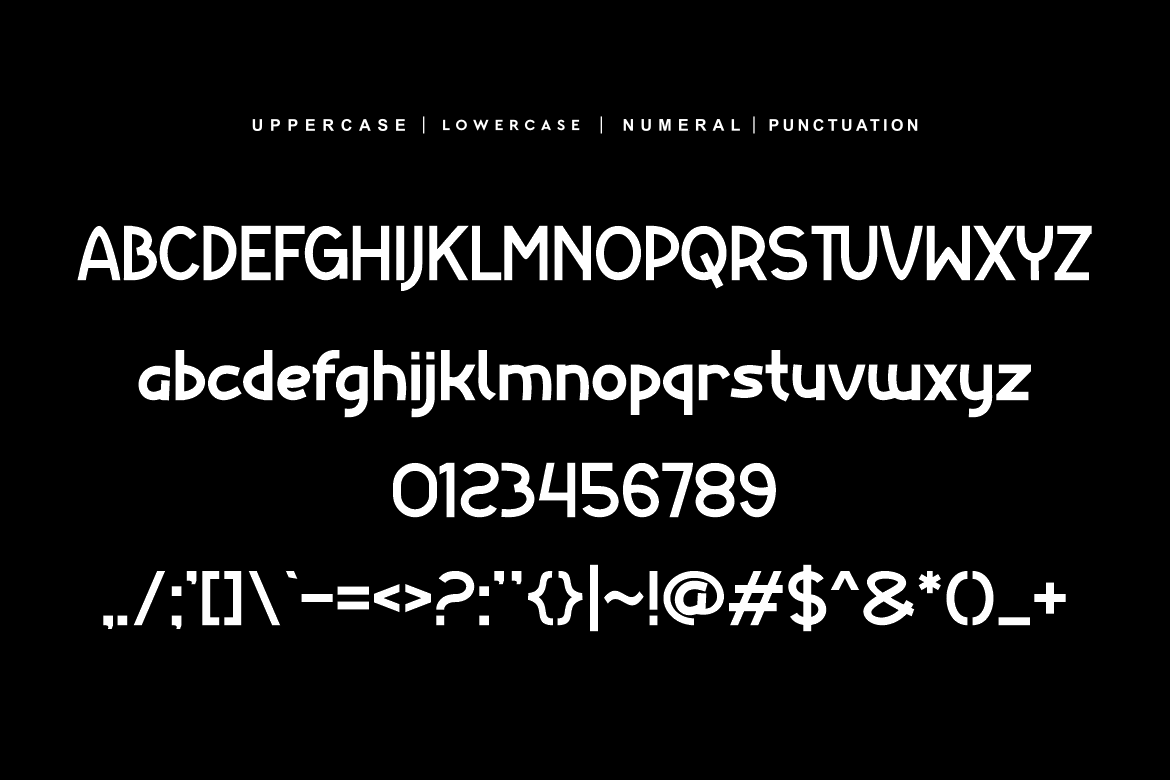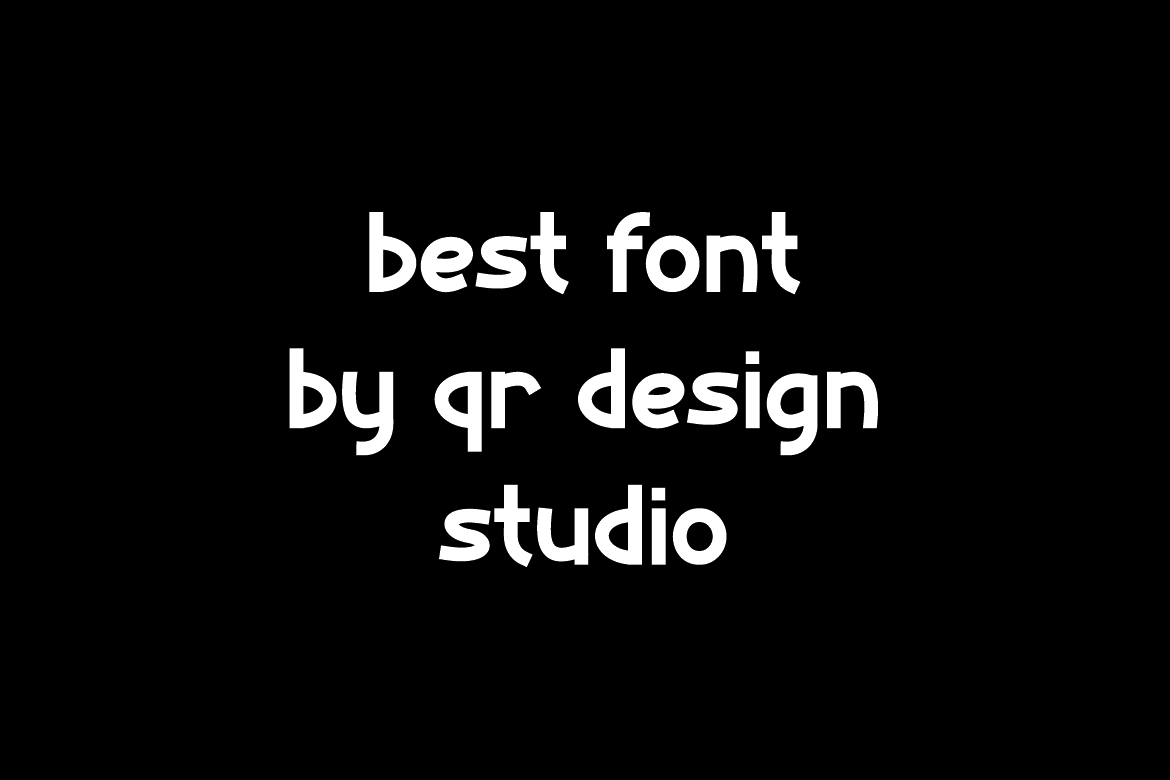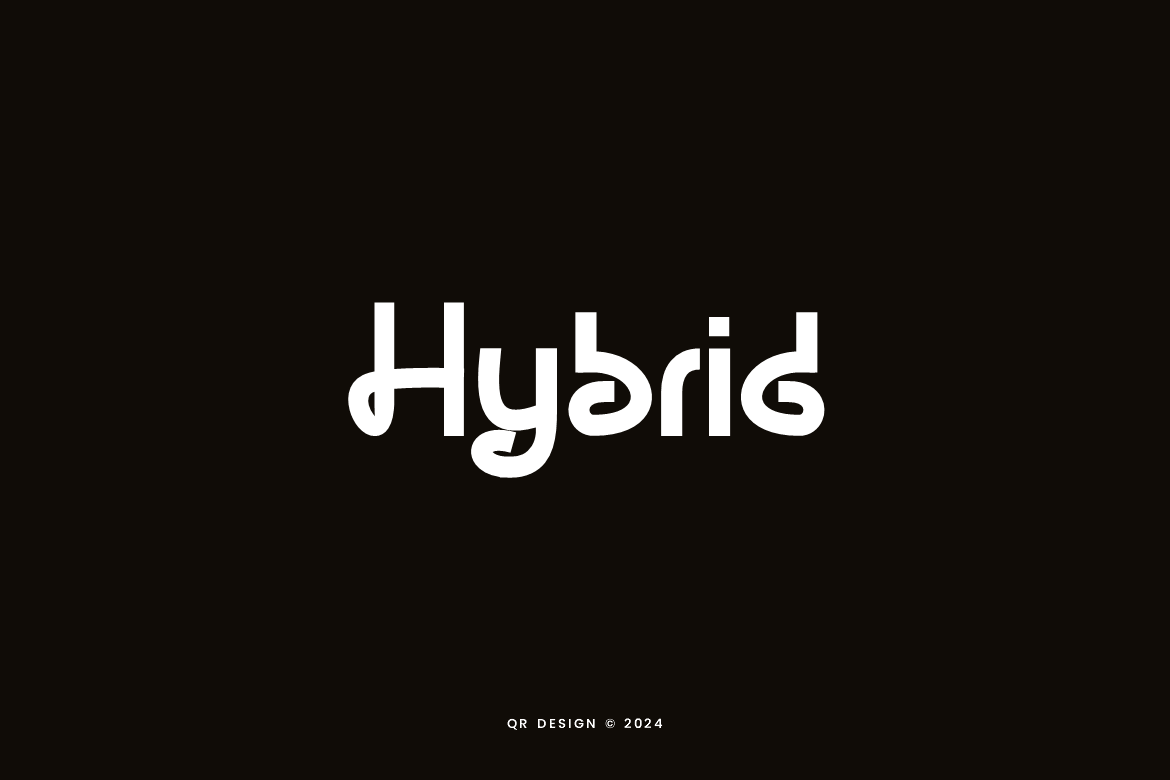
Aiglago – Hybrid Logo Sans Font
Aiglago Font is a modern and authentic display font. The font is suitable for any branding project like poster, logo, food, sport, and many more. Outstanding in a wide range of contexts.